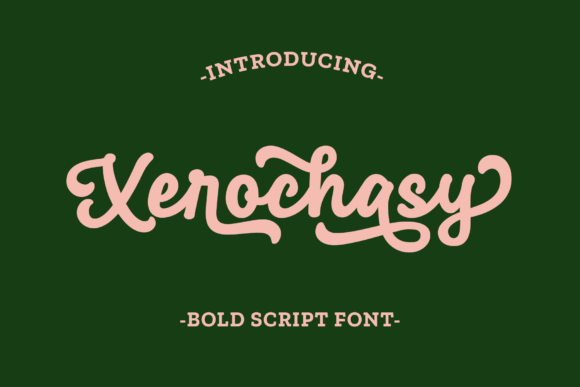
Introducing Xerochasy Script, the ultimate font family that brings a touch of vintage charm to your creative projects. Crafted with meticulous attention to detail by the talented nhfonts, Xerochasy is a bold and beautiful font that exudes a timeless elegance.
With its classic touch and exceptional readability, Xerochasy is the perfect choice for any designer seeking to make a lasting impression. Its carefully balanced strokes and distinctive curves create a visual harmony that captivates the eye. Experience the alluring aesthetics of Xerochasy and transport your designs to a realm of sophistication and grace.
Step into the world of Xerochasy and discover a world of creative possibilities. Unleash your imagination and let the vintage charm of this font infuse your designs with a touch of nostalgia. Ideal for logotypes, apparel, invitations, branding, stickers, social media posts, packaging, and advertising, Xerochasy effortlessly elevates your projects to new heights of visual appeal.
Explore the boundless versatility of Xerochasy and embark on a journey of creative expression. With its intuitive PUA encoding, accessing the full range of glyphs and swashes becomes a breeze. Open up a world of design possibilities and let your creativity soar.